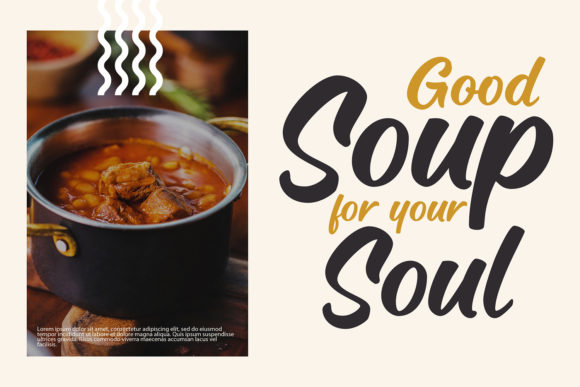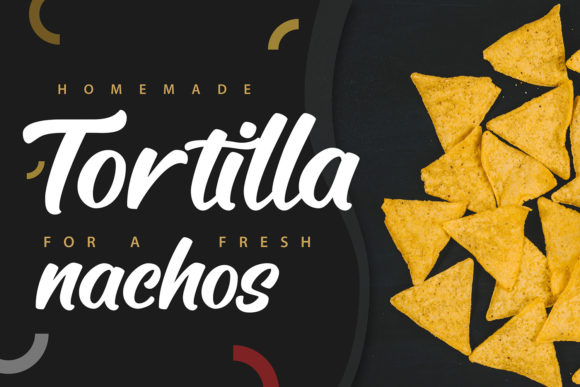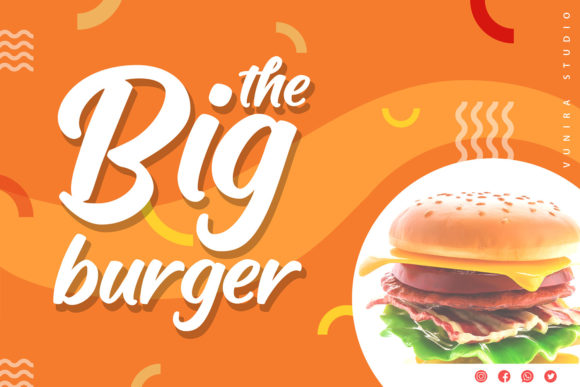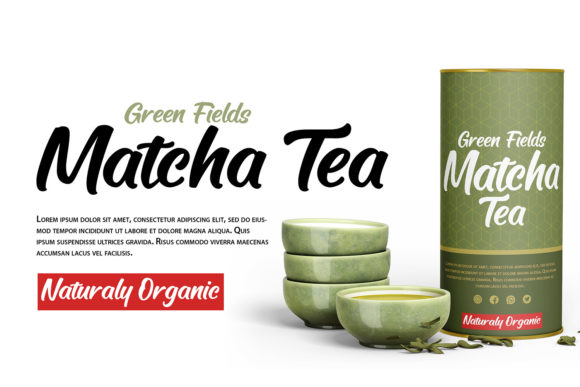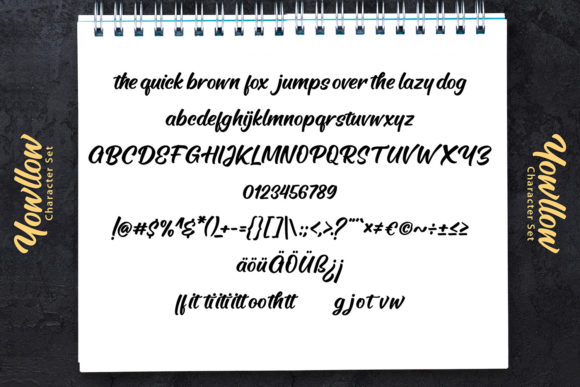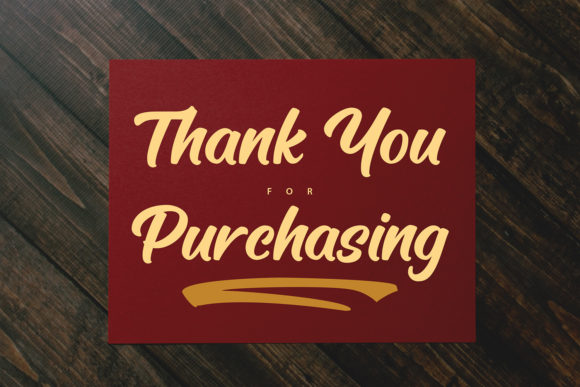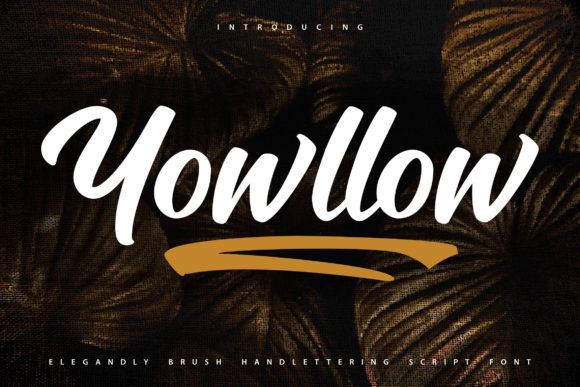
Yowllow Font
About Yowllow Font
Yowllow is a gorgeous and thick lettered handwritten font, crafted to give your headlines and logotype projects a stylish touch. This font reads as strong, confident, and dynamic and can add a trendy character to your designs.